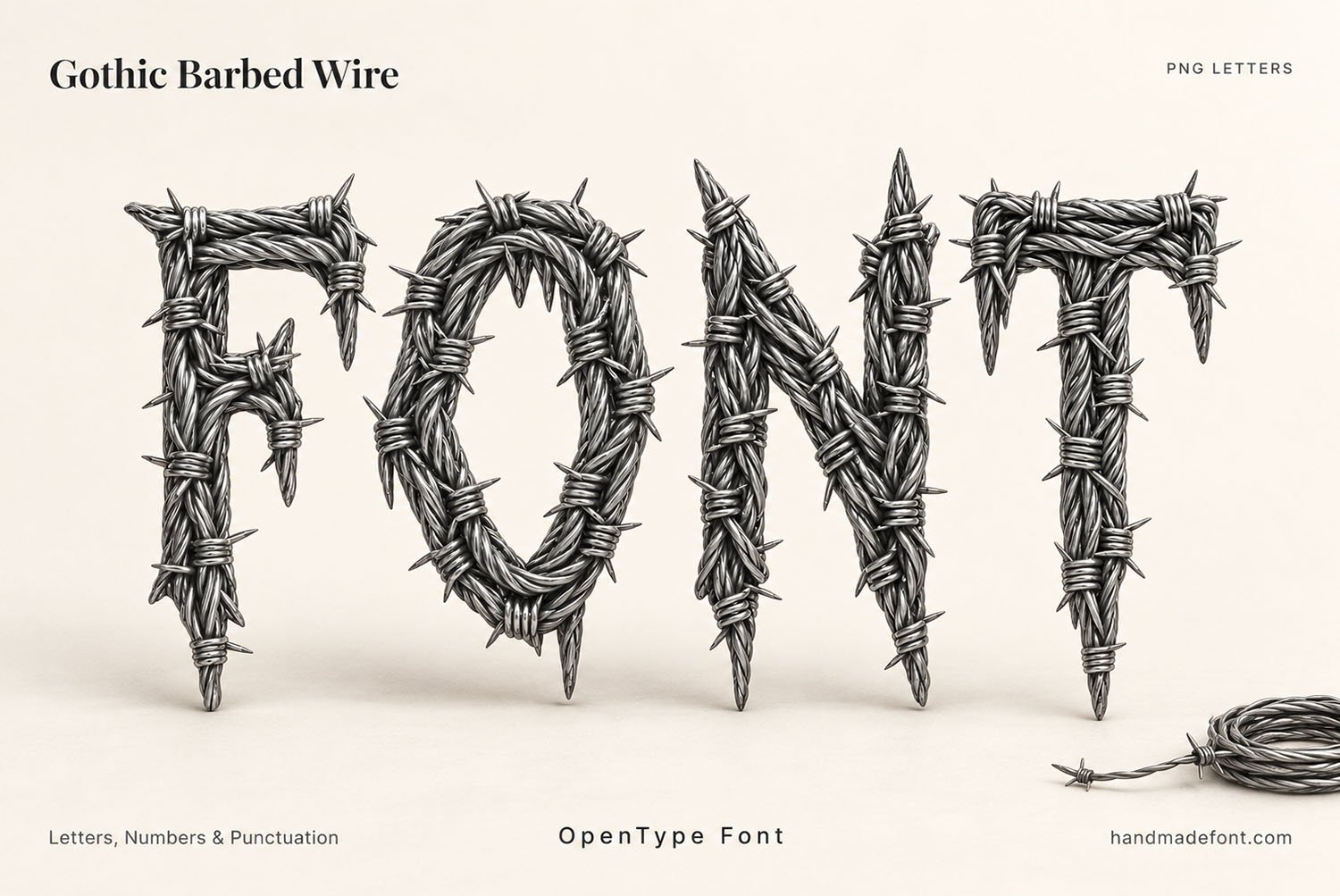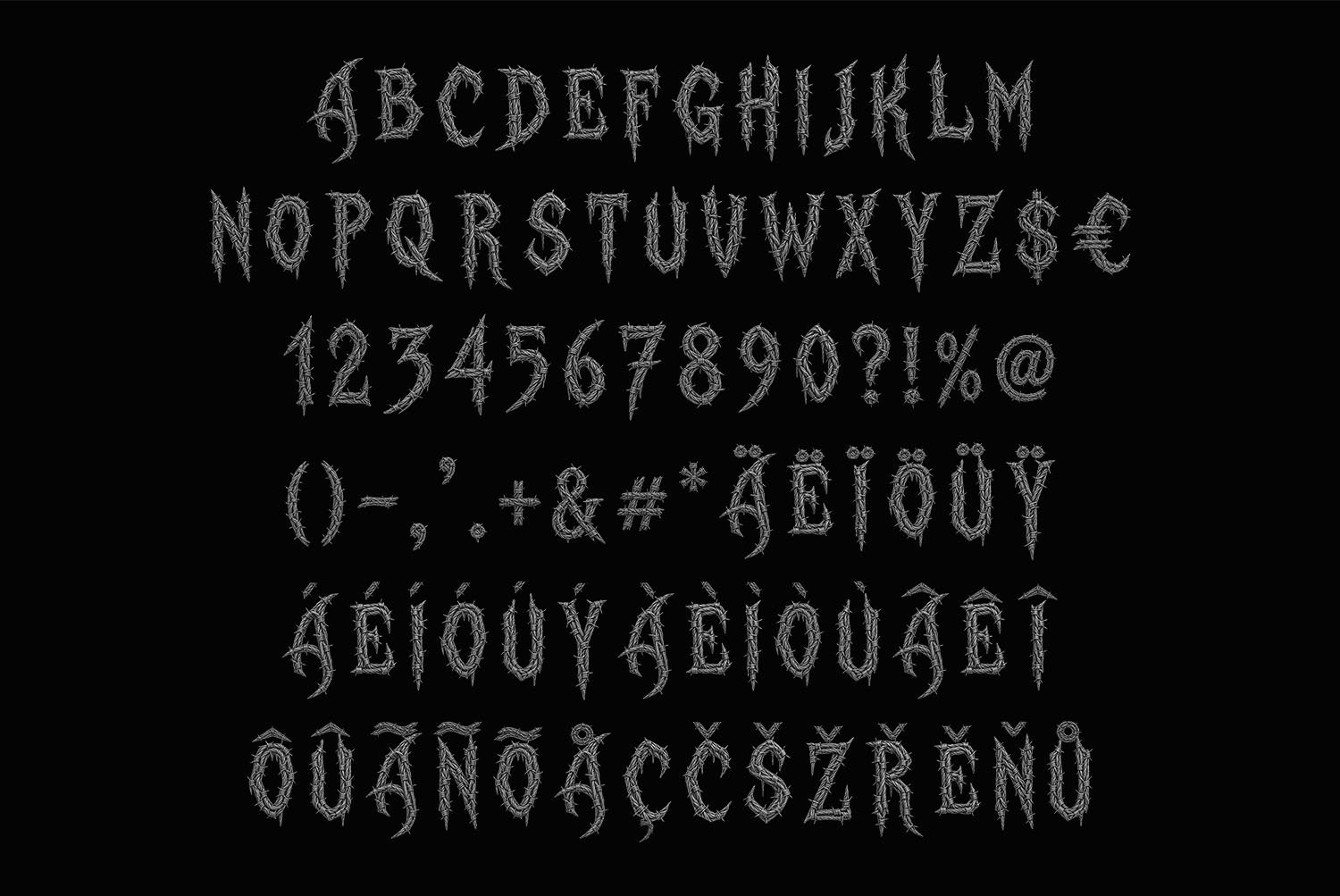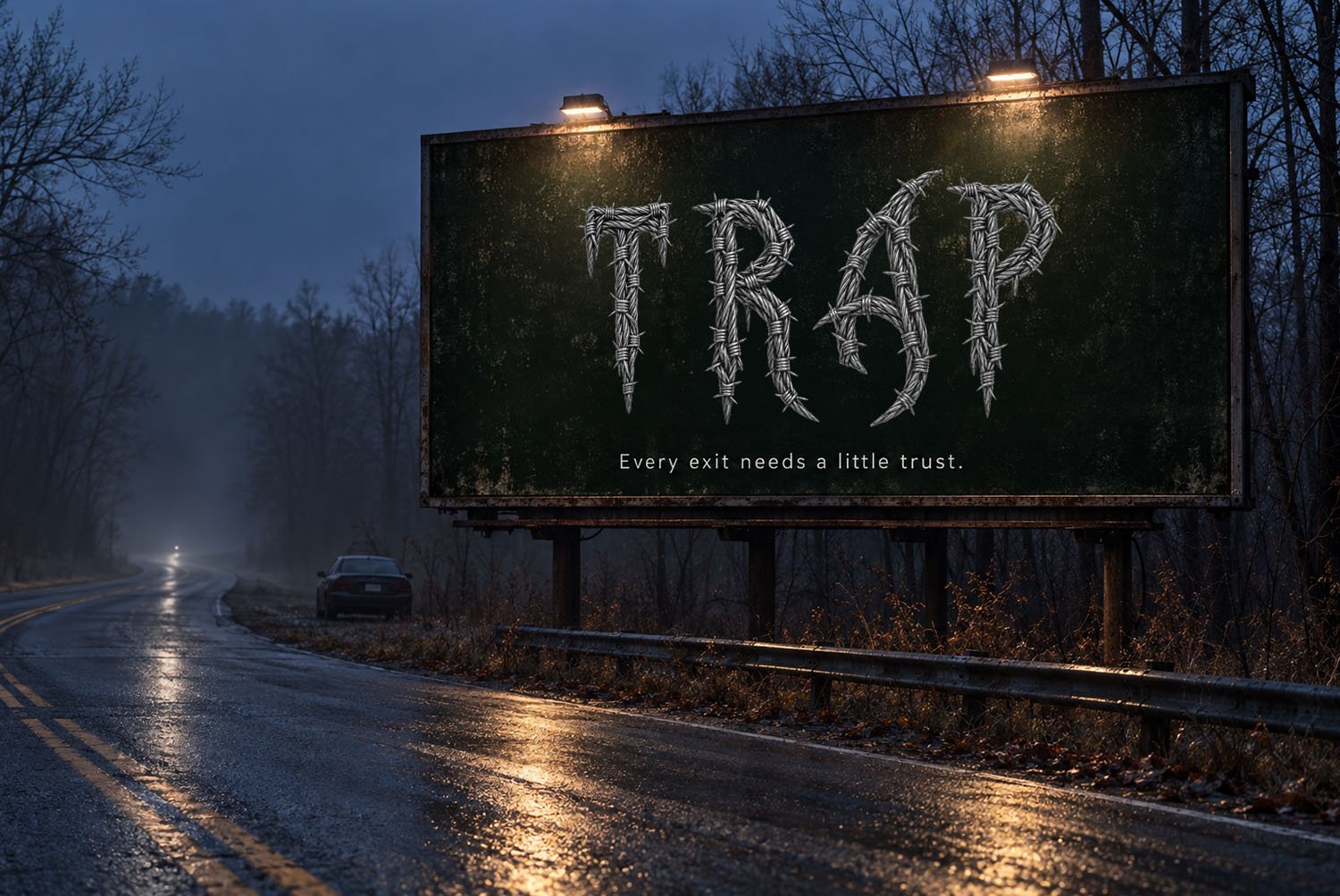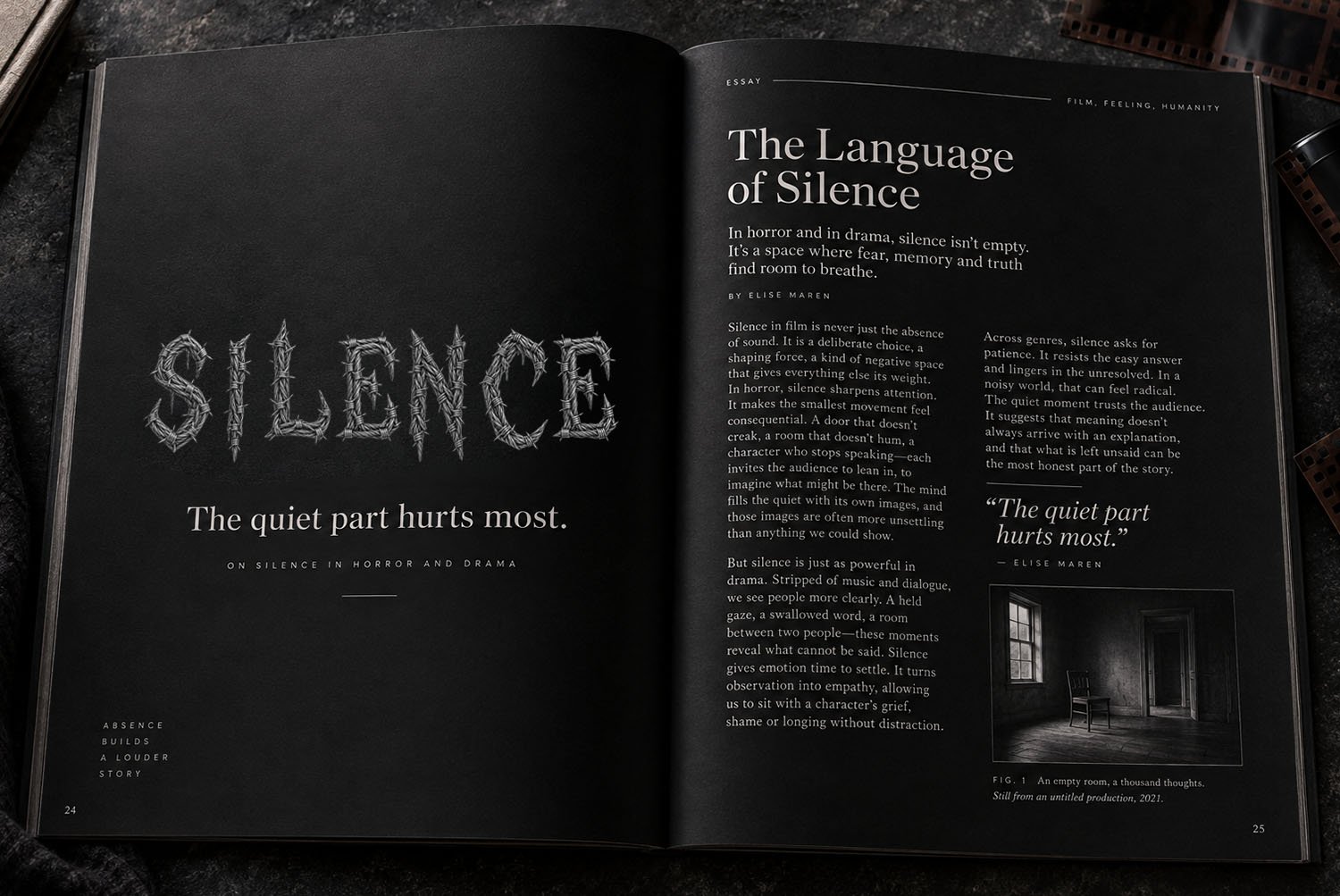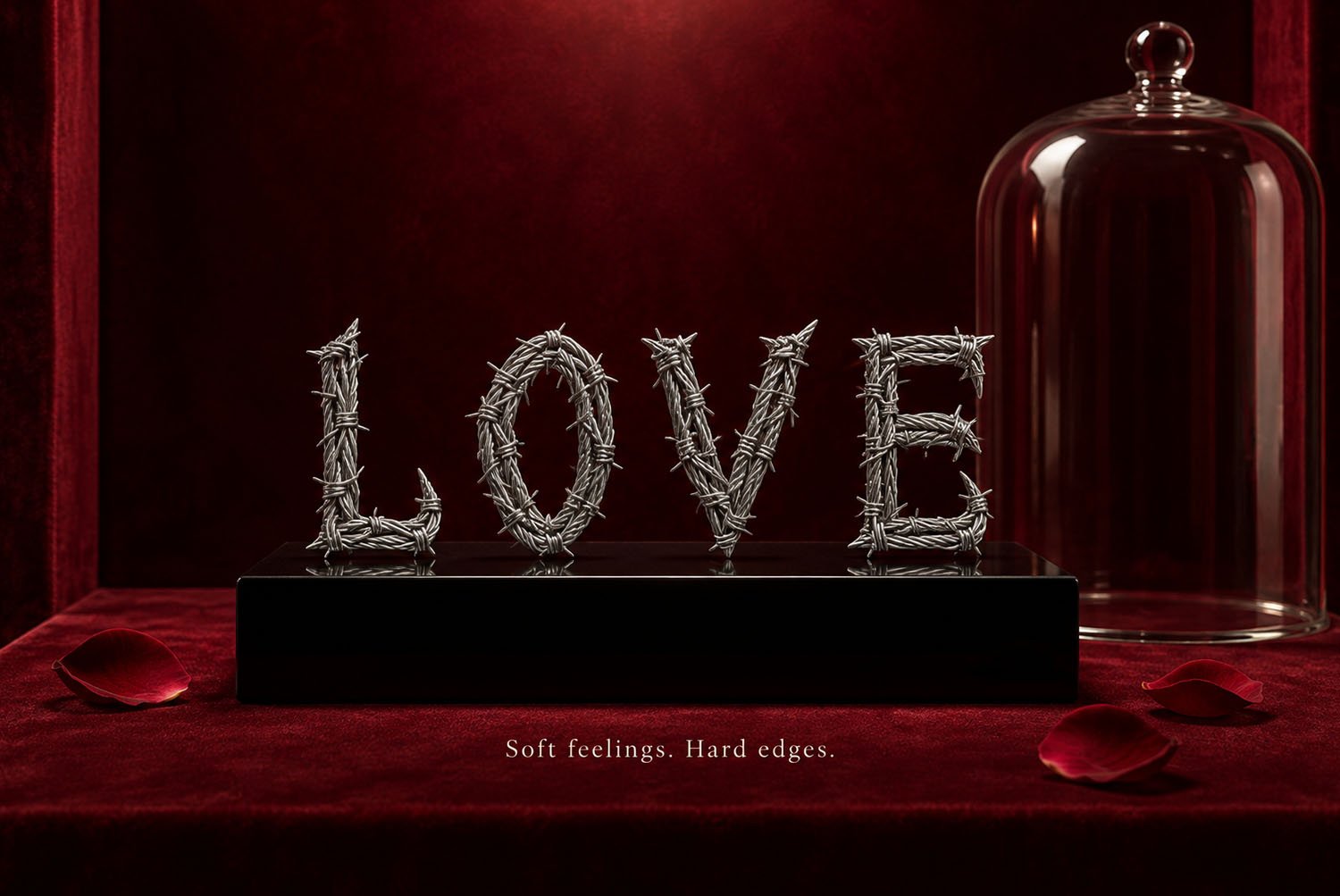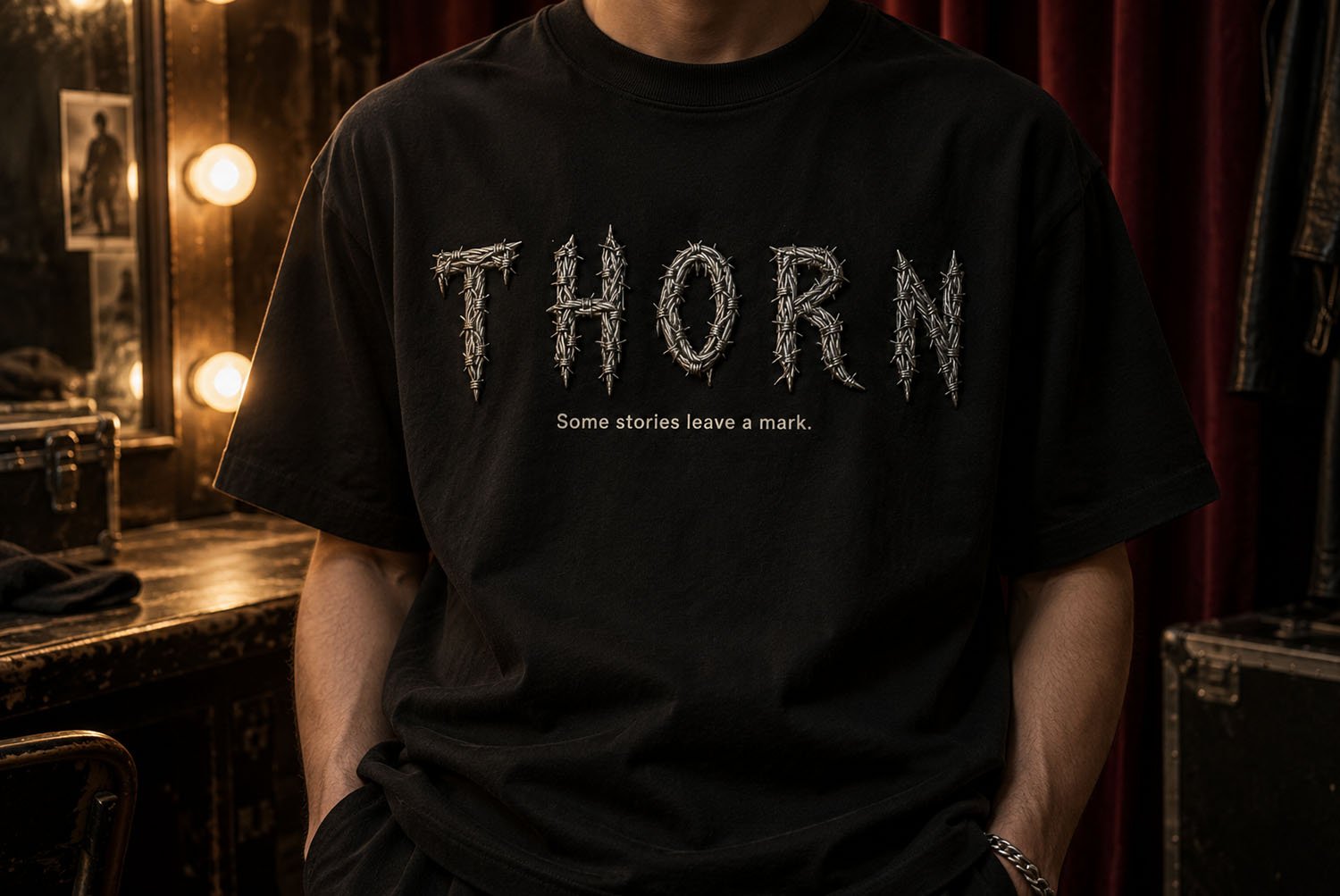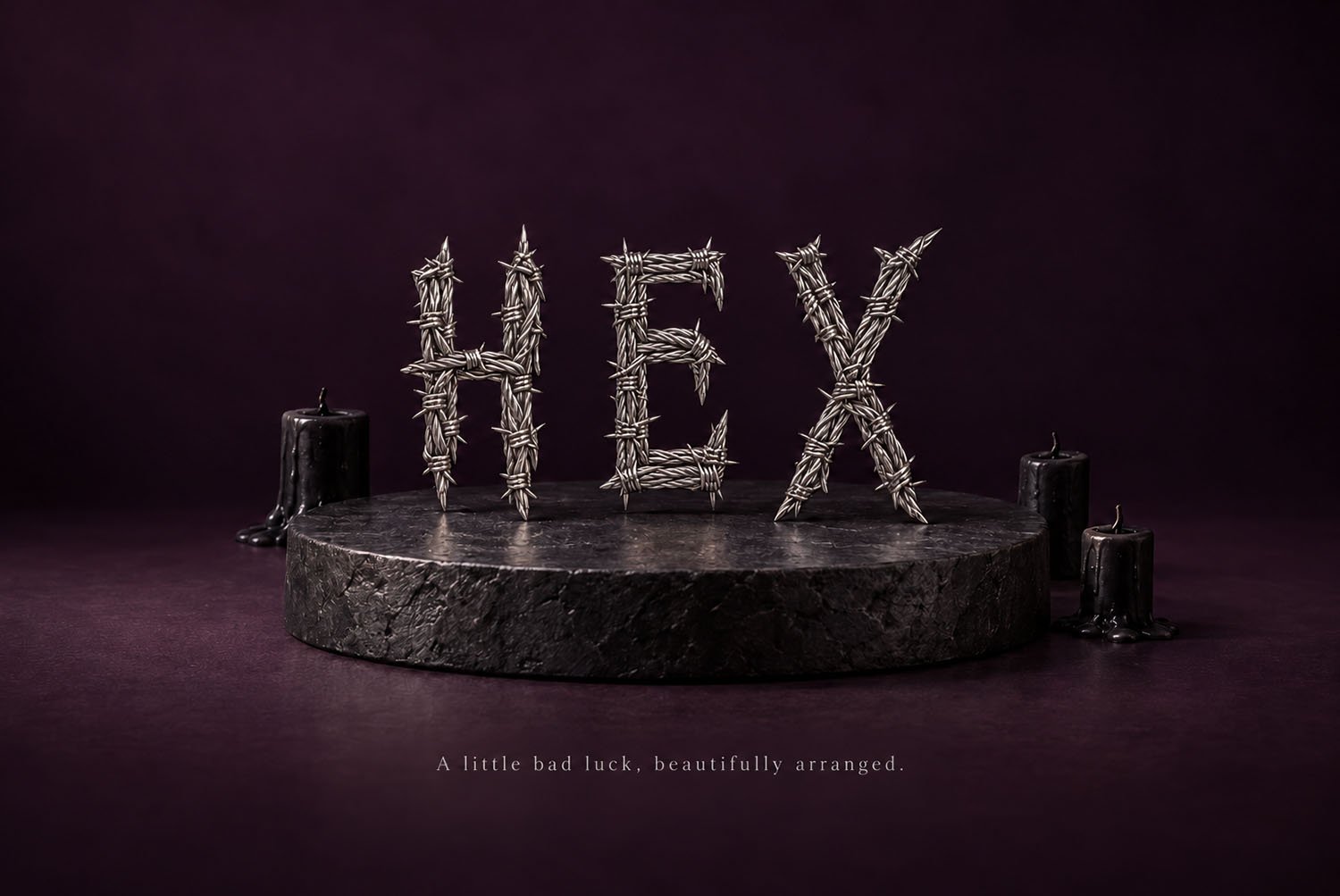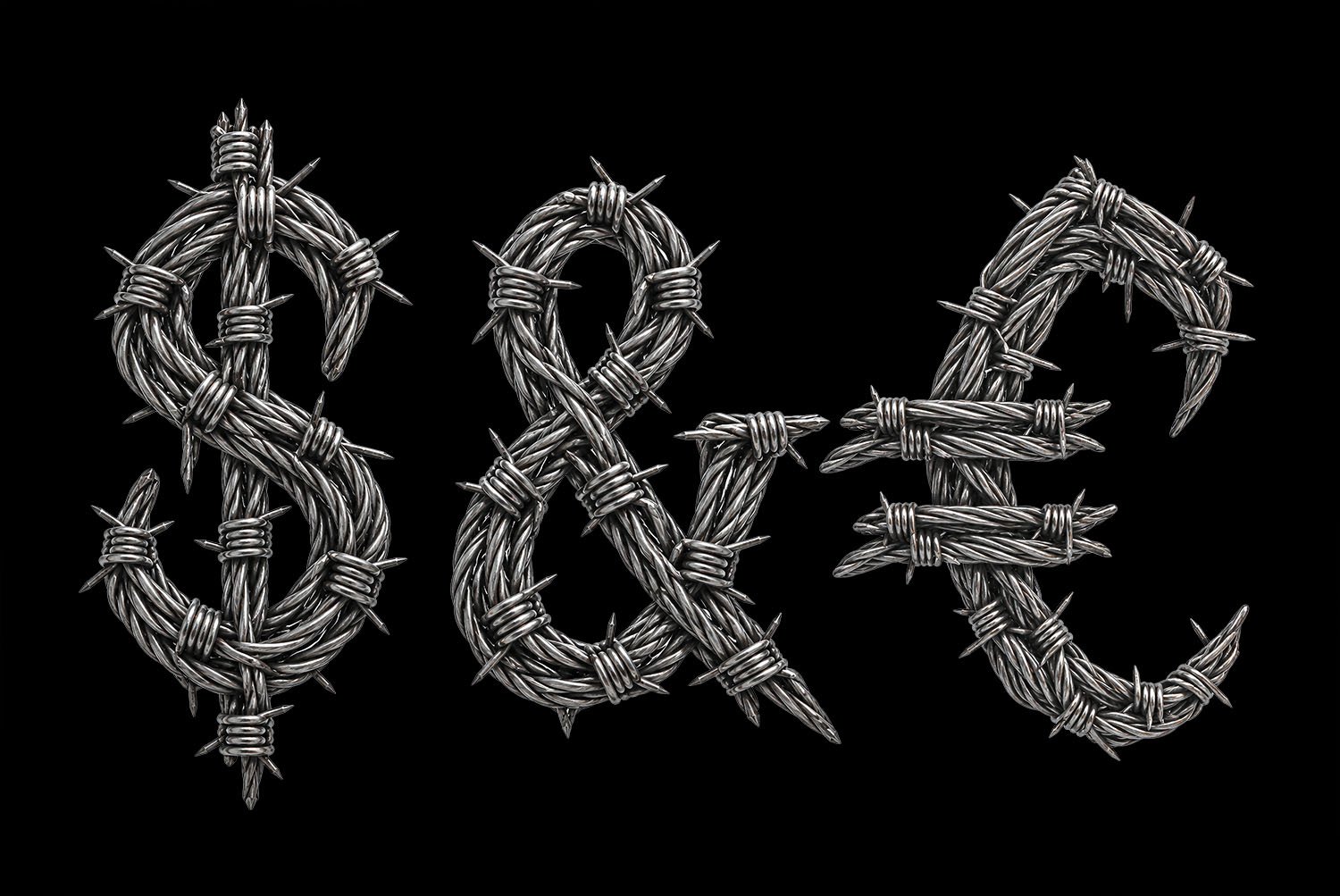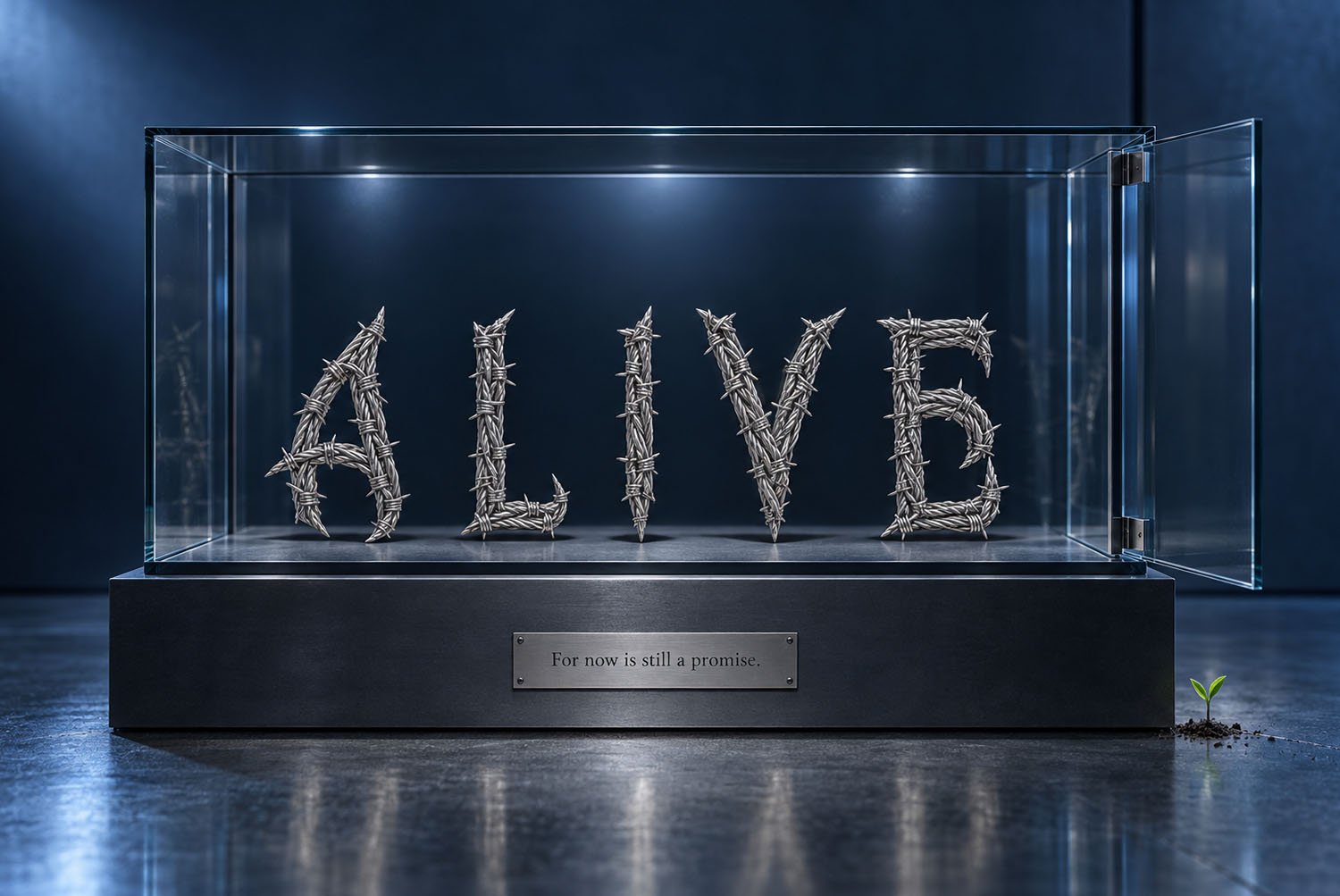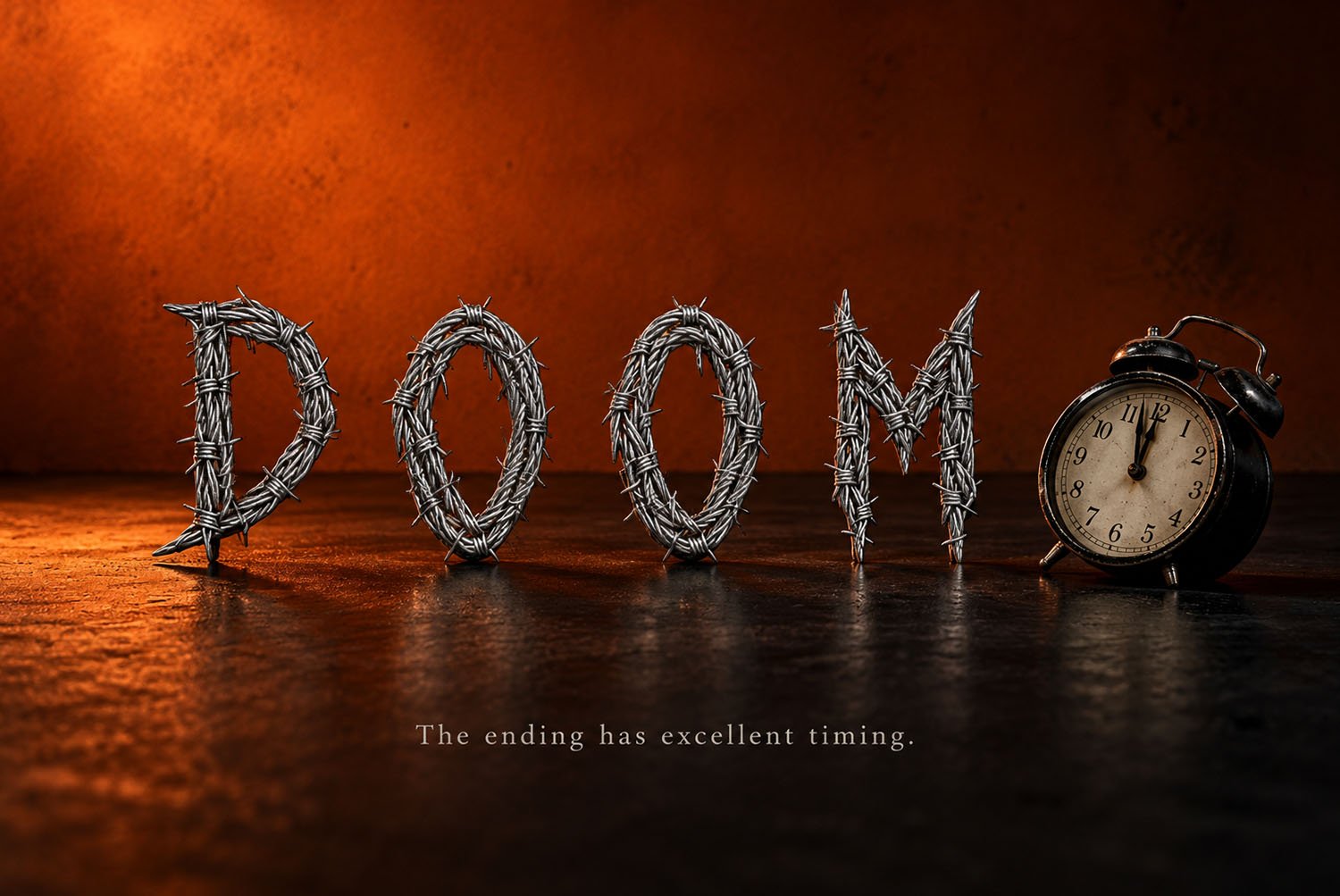
Gothic Barbed Wire Font
Gothic Barbed Wire Font transforms twisted metal into expressive typography. Each character is built from strands of barbed wire, with thorns, wrapped bindings, and dramatic Gothic forms. Its dark industrial appearance brings tension, danger, and rebellious energy to posters, album covers, fashion graphics, horror artwork, logos, packaging, and experimental designs. The font includes an OTF file for digital use, plus individual PNG letters on transparent backgrounds for flexible compositions and image-based layouts. Create complete words or combine isolated characters to produce titles with a raw, handmade, unforgettable, distinctive visual impact.
Letters : A B C D E F G H I J K L M N O P Q R S T U V W X Y Z À Á Â Ã Ä Å Ç È É Ê Ë Ì Í Î Ï Ñ Ò Ó Ô Õ Ö Ù Ú Û Ü Ý Č Ě Ň Ř Š Ů Ÿ Ž
Others : ! ? - . ' $ € % & #